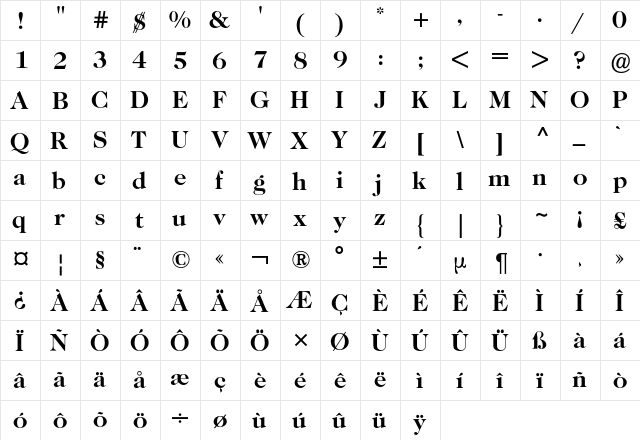
Caslon Two TwentyFour BQ Regular
Design Context for Caslon Two TwentyFour BQ Typeface
Caslon Two TwentyFour BQ is a composed and adaptable typeface that performs quietly and consistently across a wide range of design contexts.